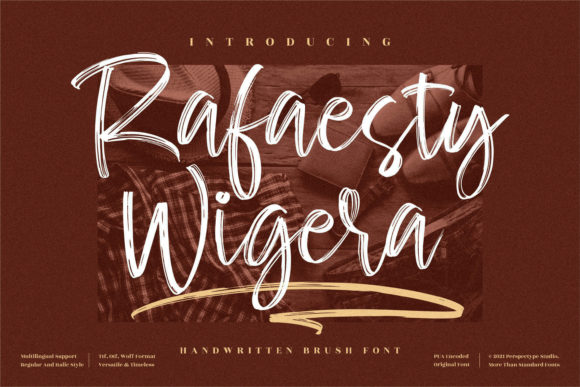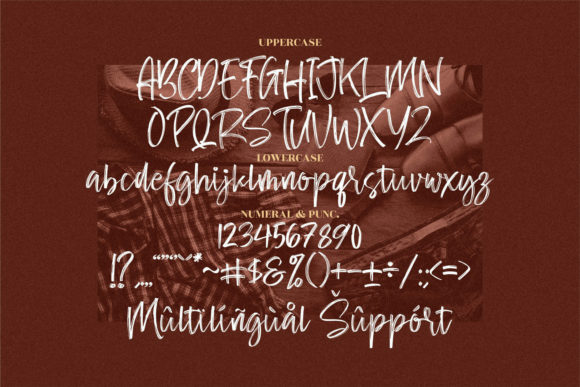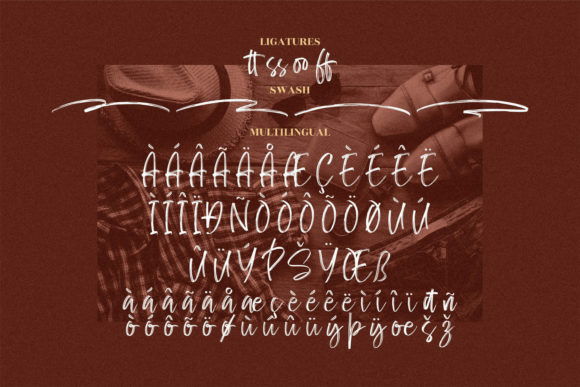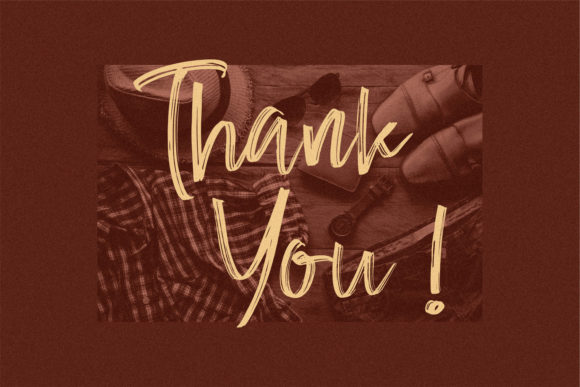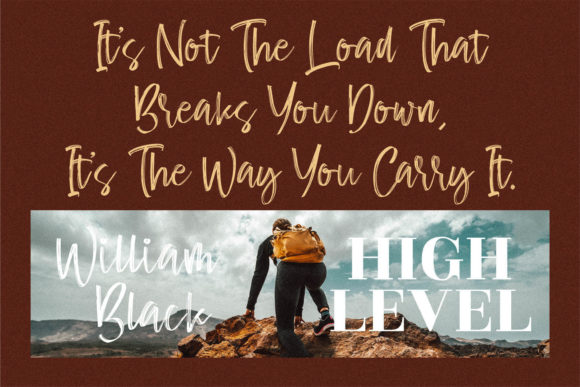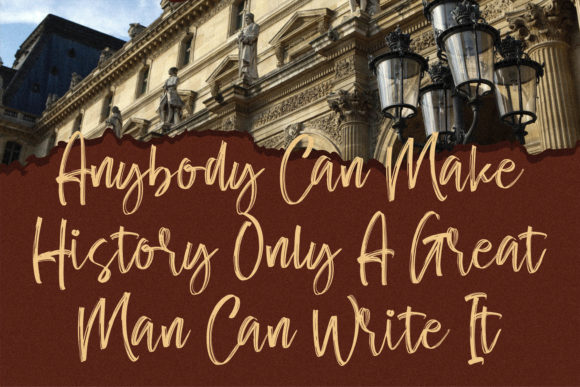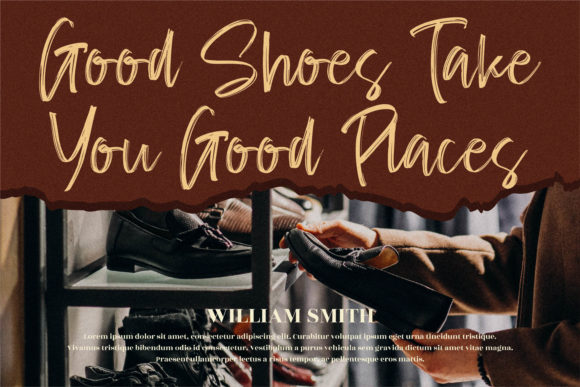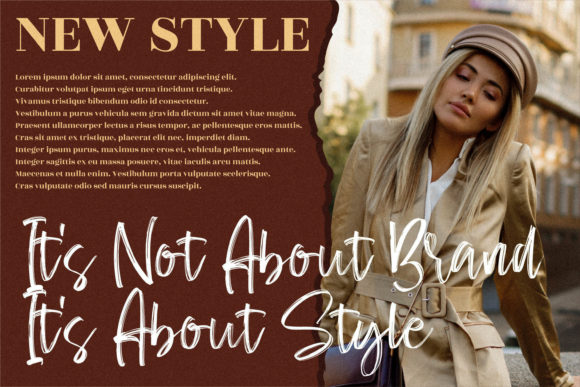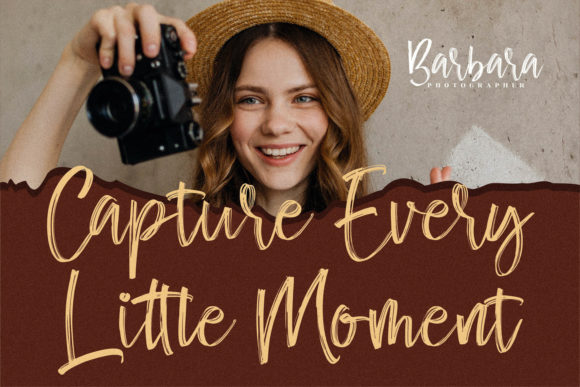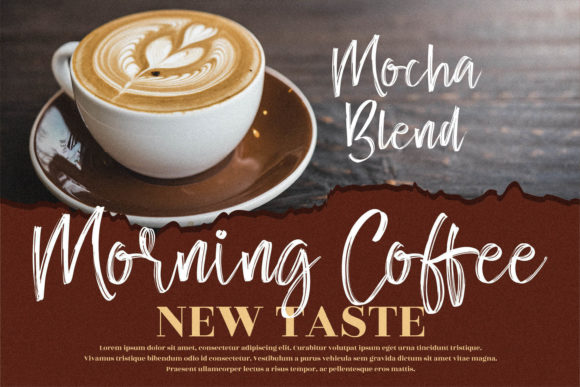
Rafaesty Wigera Font
About Rafaesty Wigera Font
Rafaesty Wigera is a beautiful brushed script font that exudes a relaxed and asymmetrical style. With its unique and handcrafted characters, this font adds a personalized touch to a variety of design projects.
The brush strokes in Rafaesty Wigera create a natural and organic feel, giving your designs a sense of authenticity and charm. Whether you’re working on branding materials, logo designs, invitations, posters, or any other creative project, this font will bring a touch of character and personality.
The relaxed and asymmetrical nature of Rafaesty Wigera makes it a versatile choice for different design ideas. It can be used to evoke a casual and friendly atmosphere, perfect for projects that require a personal touch. Whether you’re creating greeting cards, handwritten quotes, or social media graphics, this font will add a warm and inviting vibe.
Rafaesty Wigera’s brushed script style also lends itself well to more artistic and expressive designs. Its irregular letterforms and varying stroke widths give a sense of movement and dynamism, making it suitable for projects that aim to capture attention and convey a sense of creativity.
This font’s versatility extends to various themes and industries. It can be used for fashion, beauty, lifestyle, food, and more. Its relaxed and asymmetrical style allows it to adapt to different design aesthetics and brand personalities.
In summary, Rafaesty Wigera is a lovely brushed script font that adds a relaxed and asymmetrical touch to your designs. Its handcrafted and personalized feel makes it suitable for a range of design projects, from branding materials to social media graphics. Embrace its unique style and let it bring a sense of charm and authenticity to your creations.